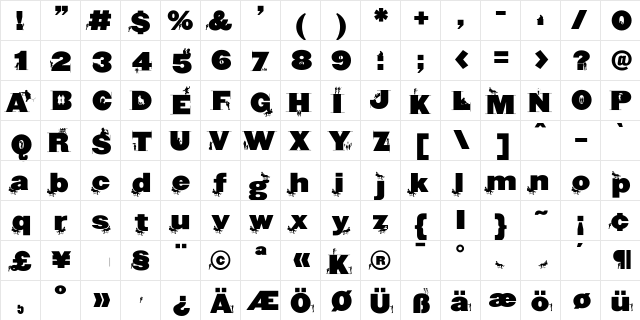
BlaxxConPersona Regular Font Preview
BlaxxConPersona Regular
Design Context for BlaxxConPersona Typeface
BlaxxConPersona is a composed and adaptable typeface that performs quietly and consistently across a wide range of design contexts.